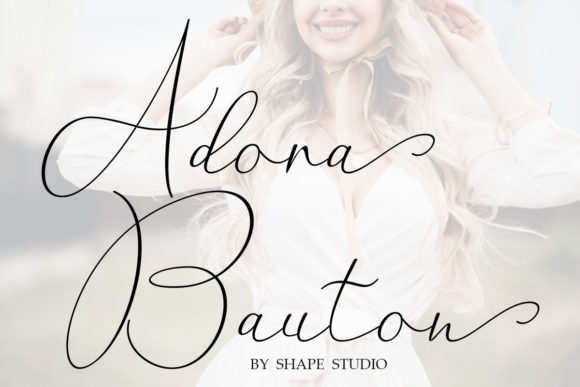
The Adora Bauton Font: A Timeless Choice for Creative Projects
I’ll never forget the struggle I faced while working on a branding project for a small business. My client wanted a font that was both elegant and playful, but I was having a hard time finding the perfect fit. That was until I stumbled upon the Adora Bauton font. It was love at first sight! 😍 With its lovely and timeless handwritten style, it was the perfect choice for creating eye-catching logos, branding, and quotes.
An Honest Review of Adora Bauton
• ✨ The font’s elegant and cursive handwritten style is perfect for a variety of design projects.
• ✅ The PUA encoding makes it easy to access all the glyphs and swashes, giving you endless creative possibilities.
• 💫 The font’s versatility allows you to use it for logos, branding, quotes, and so much more.
• 🎉 The font’s unique character and charm will make your designs stand out from the crowd.
While Adora Bauton is an amazing font, there are a few things to keep in mind: 🤔
• ⚠️ Some users may find the font’s script style a bit challenging to read in large blocks of text.
• ⚠️ As with any script font, it’s essential to use it in moderation to avoid overwhelming the reader.
The Designer Inspiration Behind Adora Bauton
Adora Bauton was designed with the intention of creating a timeless and elegant handwritten font. The designer, Bauton, drew inspiration from classic script fonts and infused them with a modern twist. The result is a font that exudes sophistication and charm.
PUA (Private Use Area) encoding allows font users to access a wide range of glyphs and swashes, giving them more creative freedom and flexibility. With PUA encoding, you can easily access the various features and alternates of Adora Bauton.
Q: Is Adora Bauton suitable for large blocks of text?
While Adora Bauton is an elegant and beautiful font, it’s not ideal for large blocks of text. The script style can be challenging to read in long paragraphs, so it’s best to use it in moderation for headings, titles, and short text snippets.